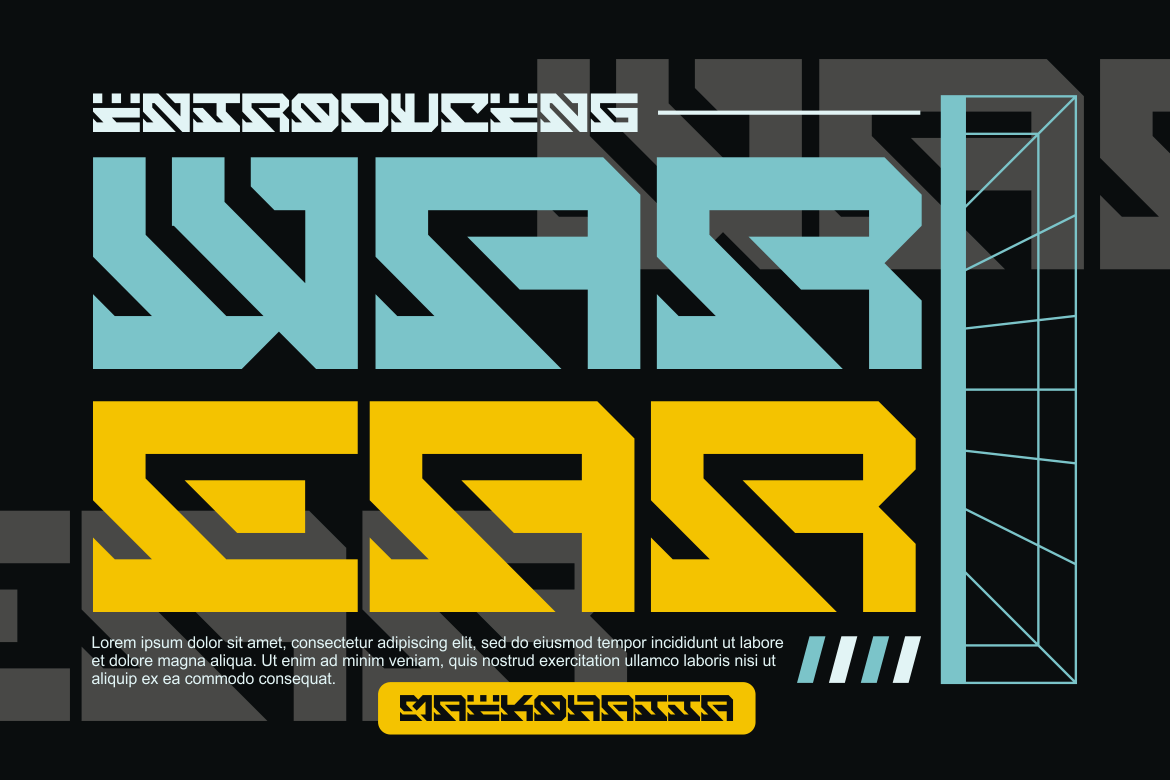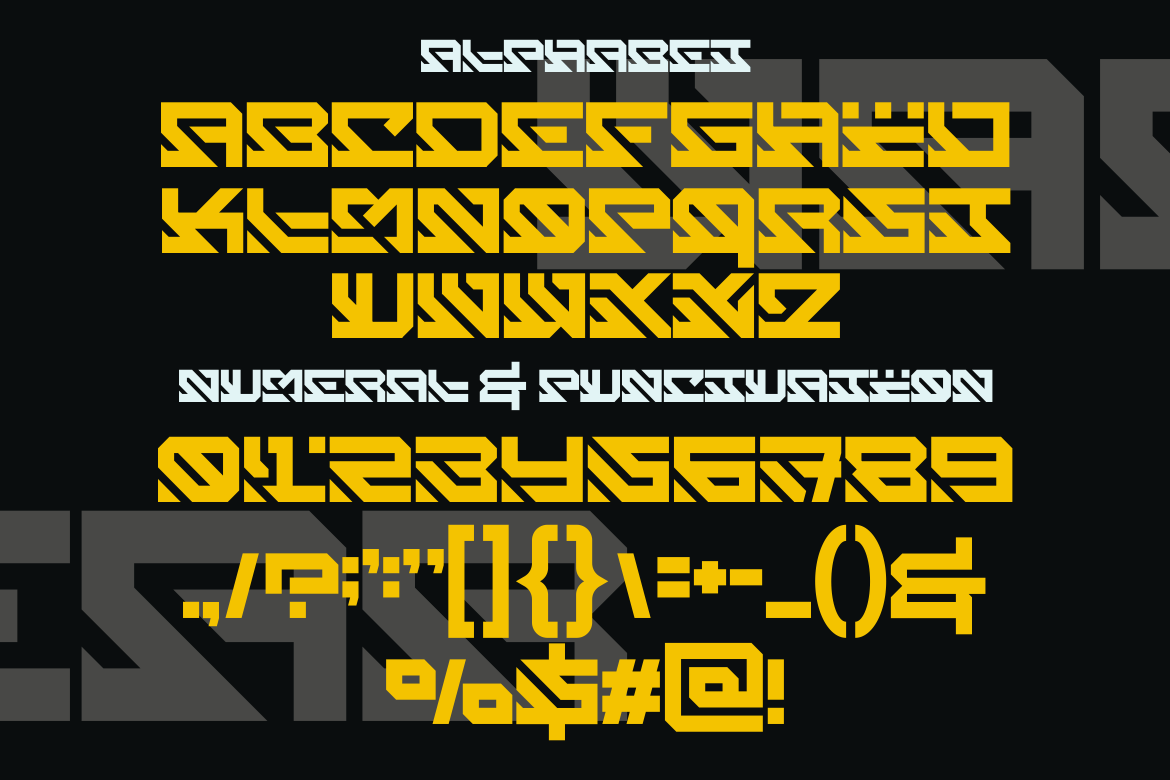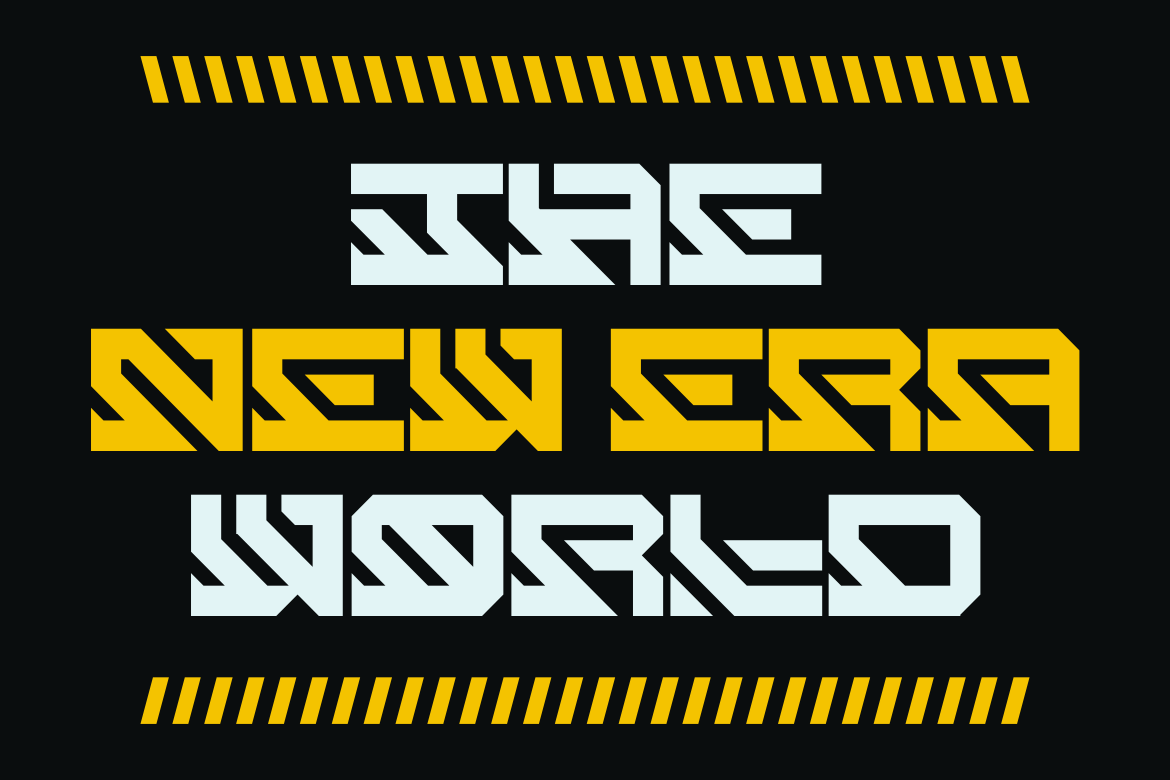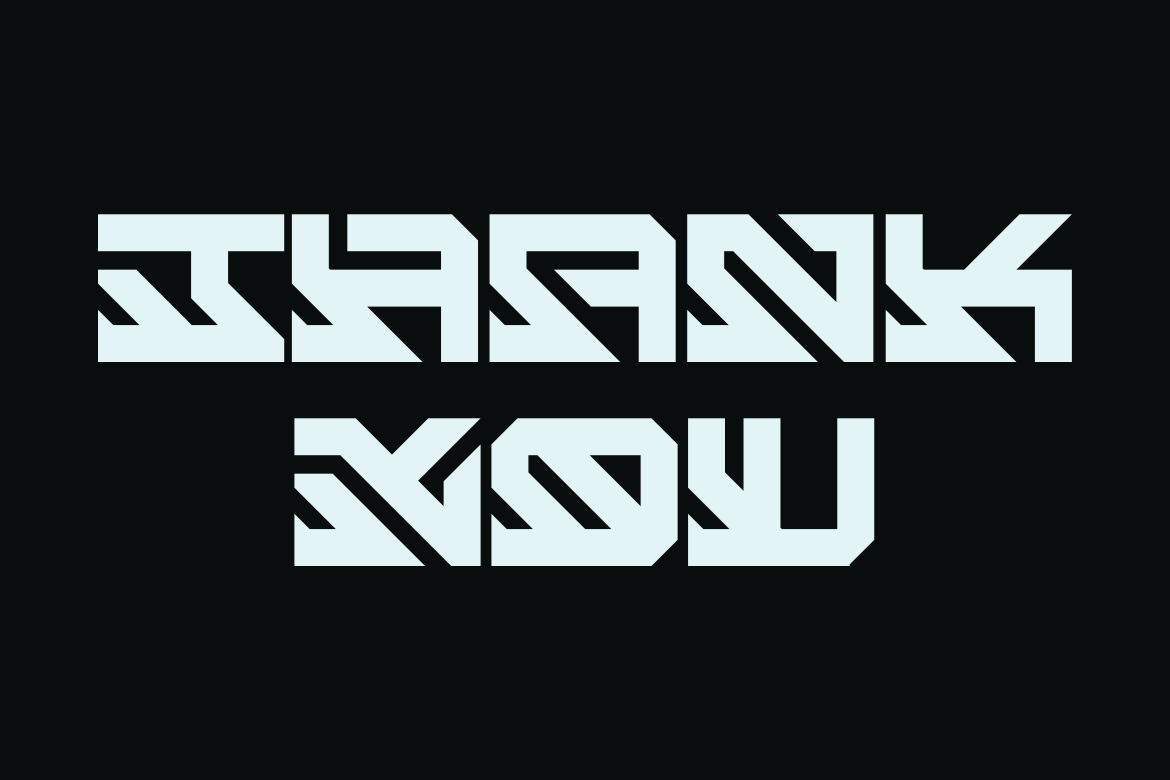
WAR EAR FONT
Introducing our new product WAR EAR FONT – Modern Font
WAR EAR FONT – Modern Font is a bold and authentic display font. The font is suitable for any branding project like logo, t-shirt printing, esport, and many more. outstanding in a wide range of contexts.